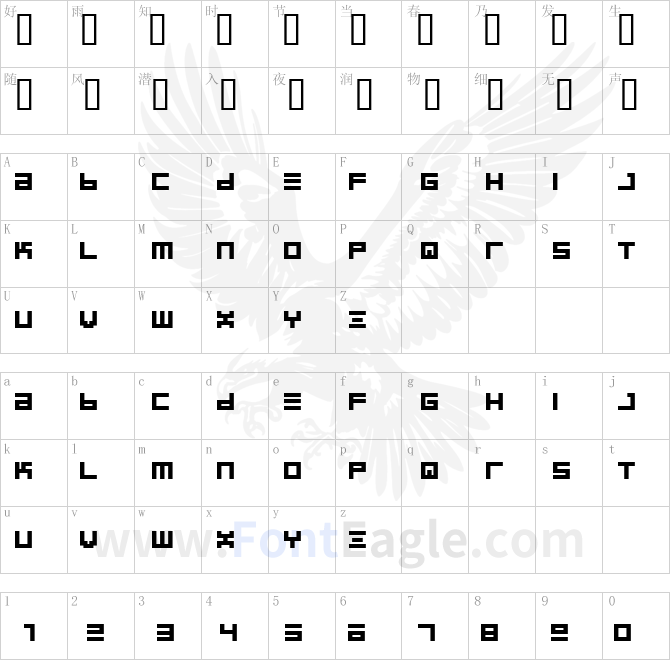
- Font name:BIN Bold
- Font Full Name:BIN Bold
- Font Copyright:© stefanie koerner | pheist.net | 2000 (Updated 2008)
BIN-Bold is a great font, widely used in graphic design, single-page menu design, poster design and other fields, and is deeply loved by designers.BIN-Bold download.